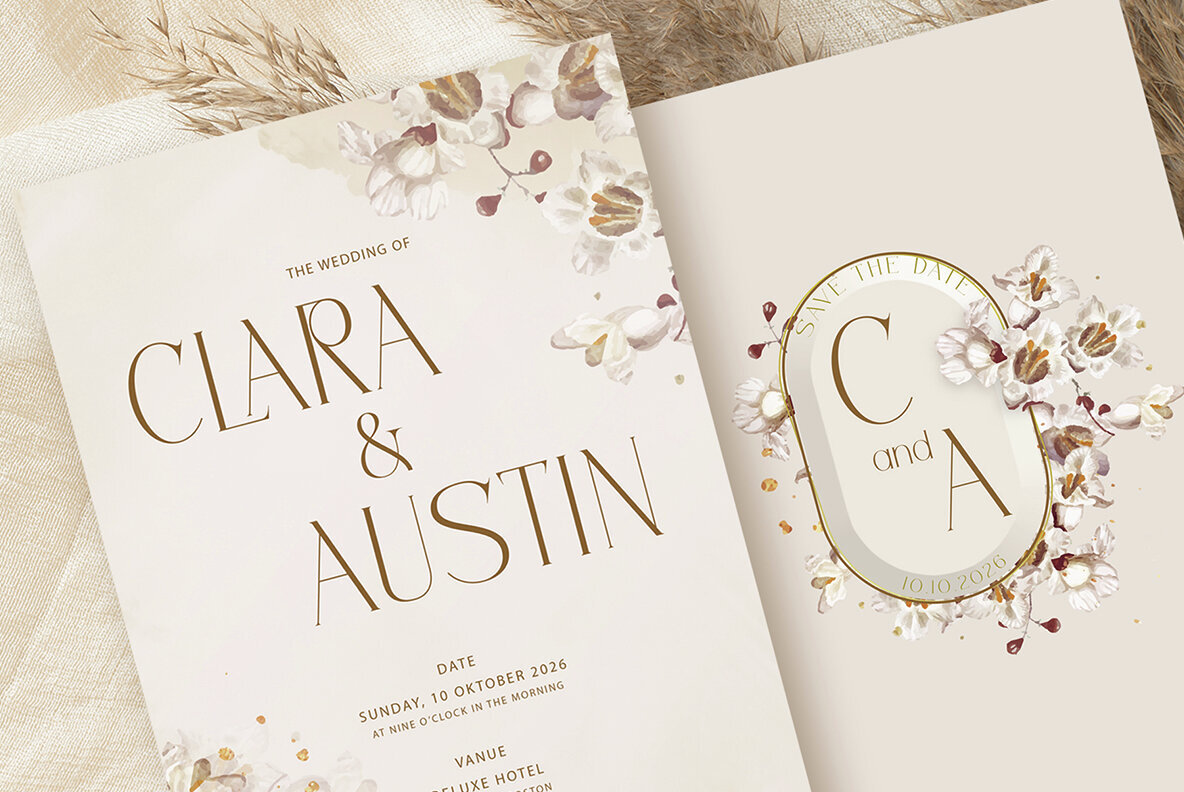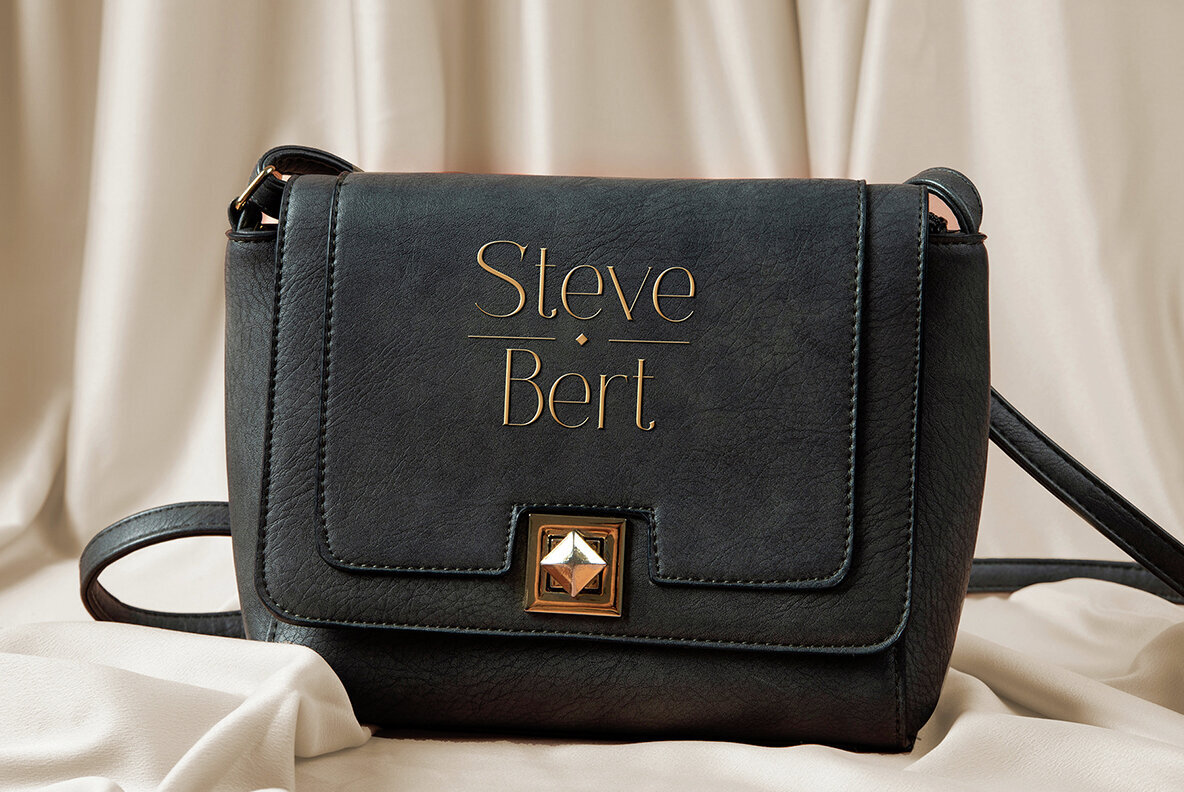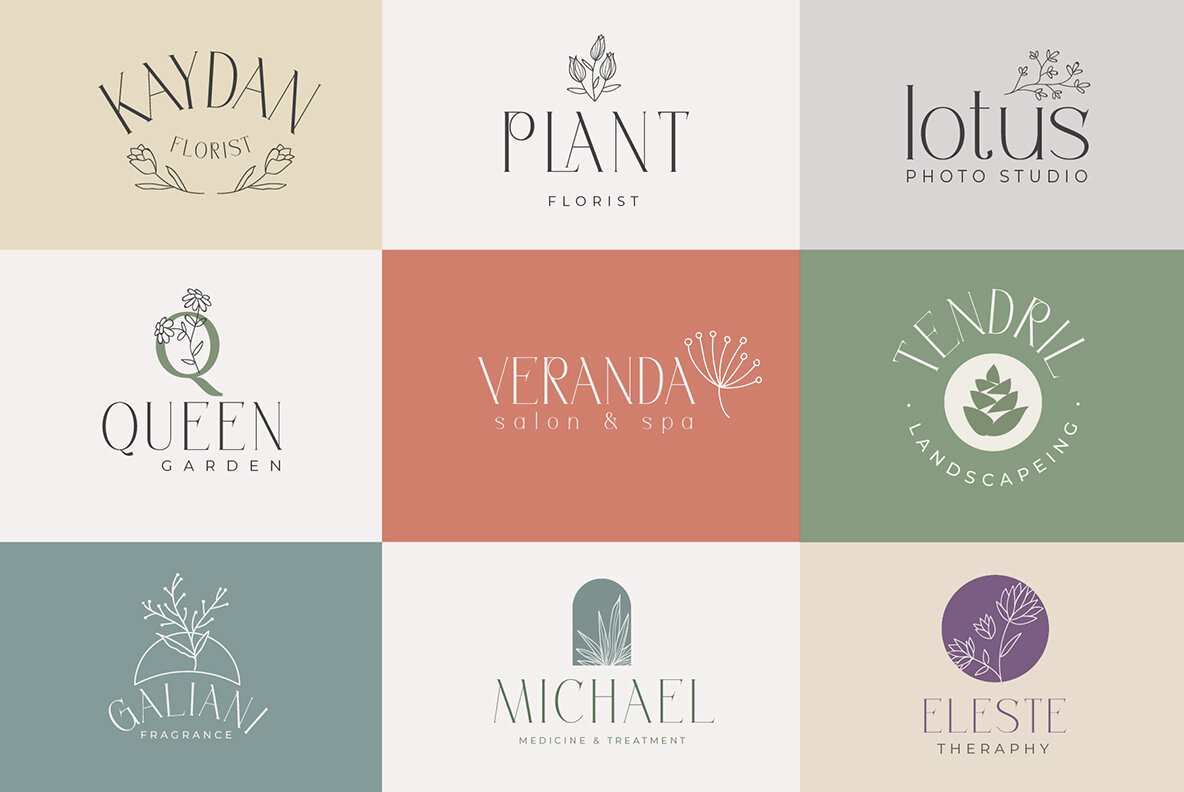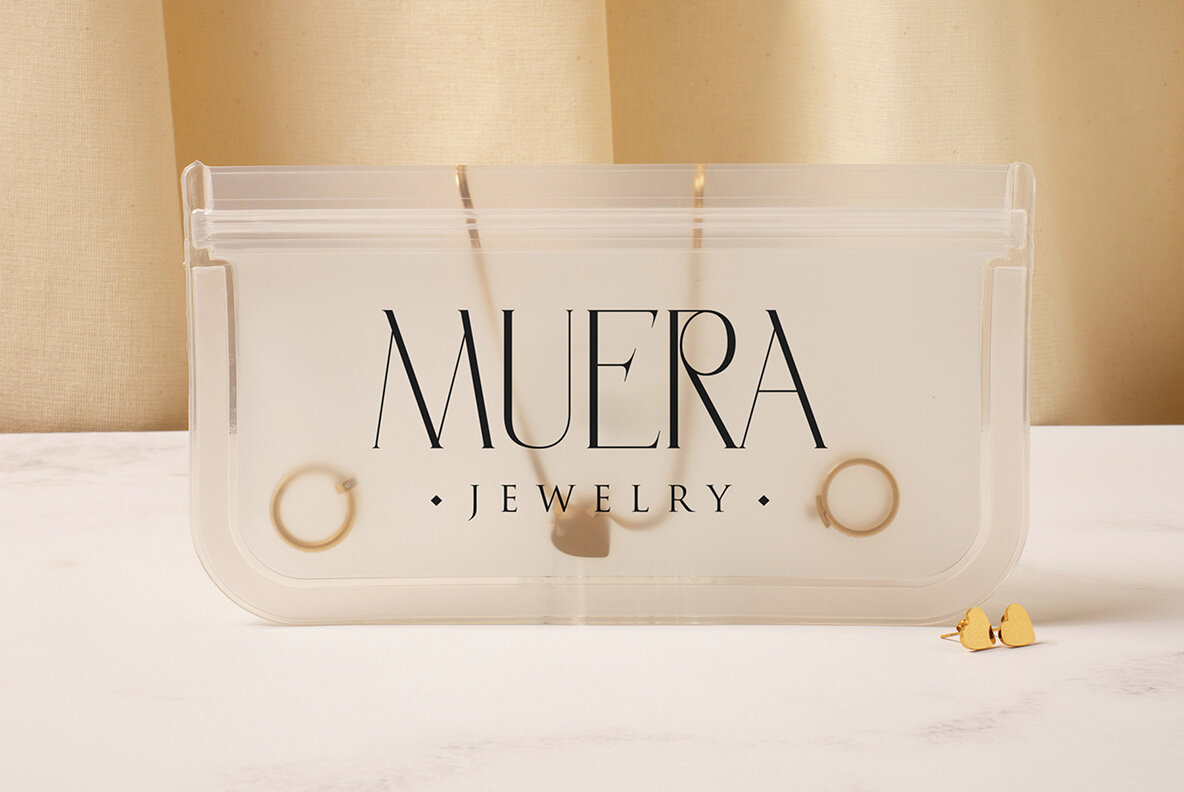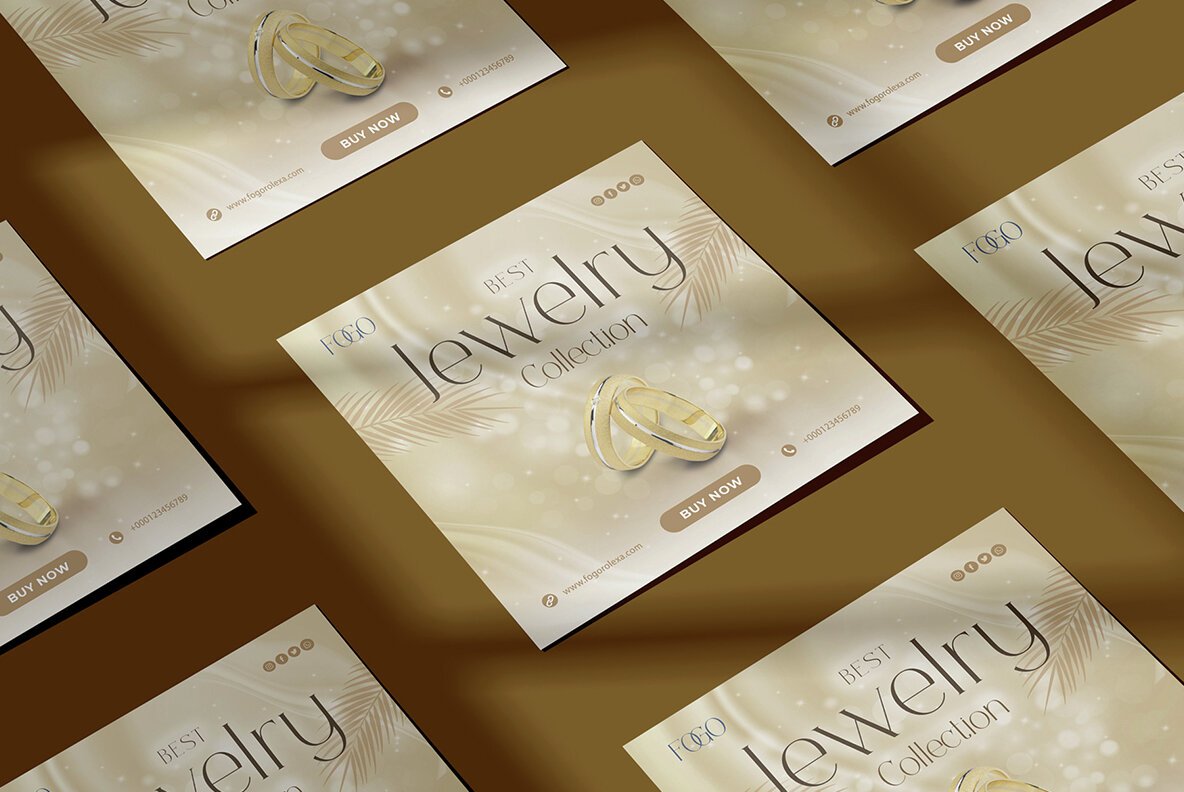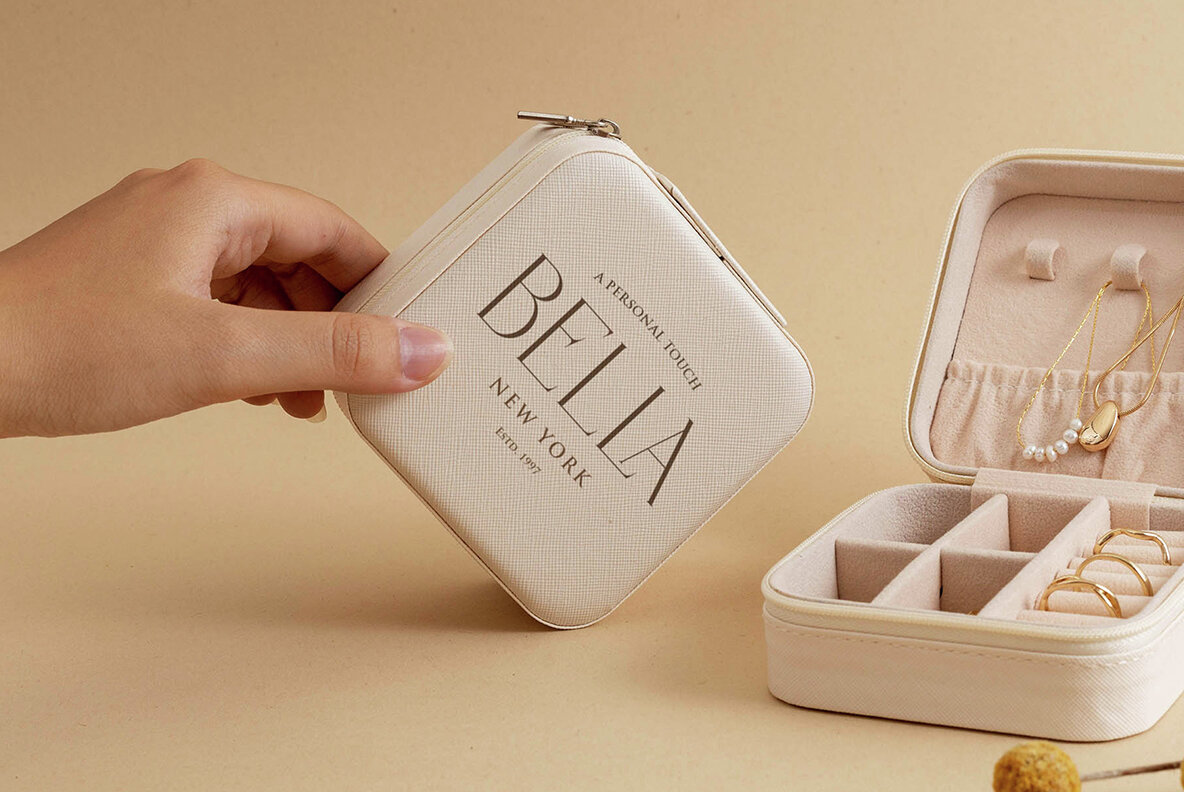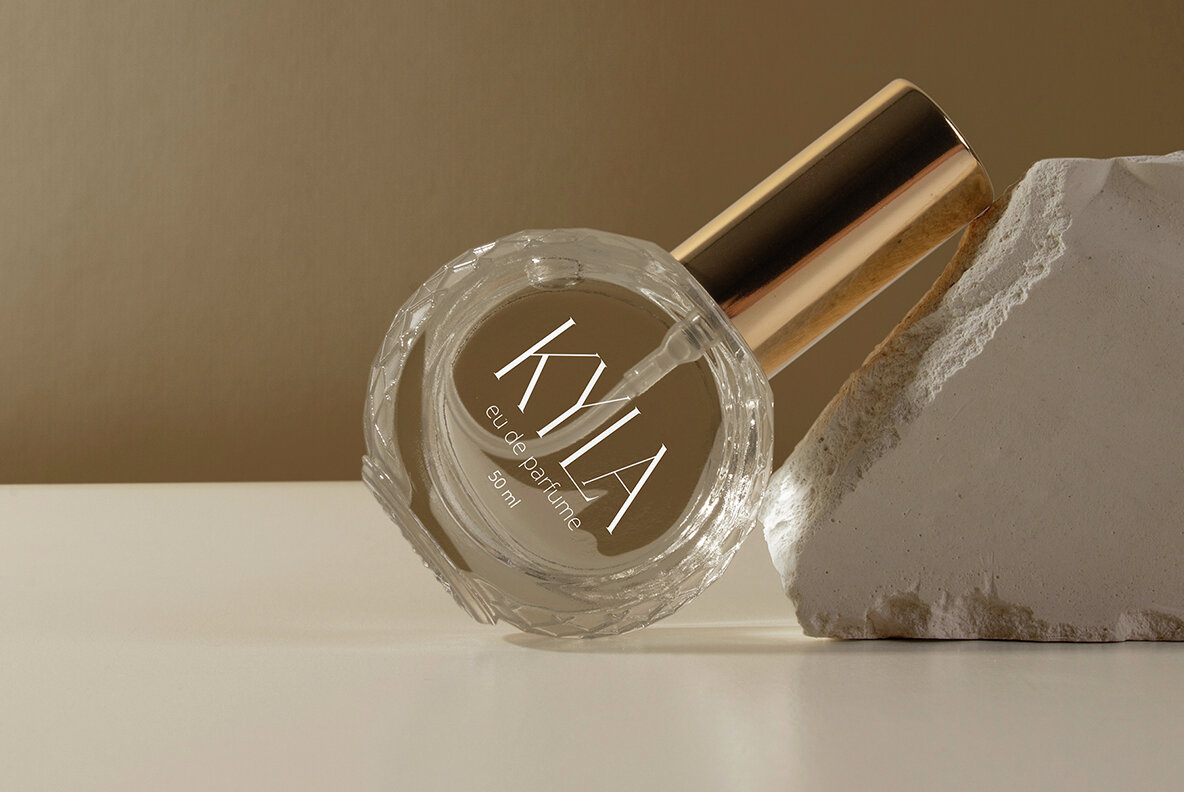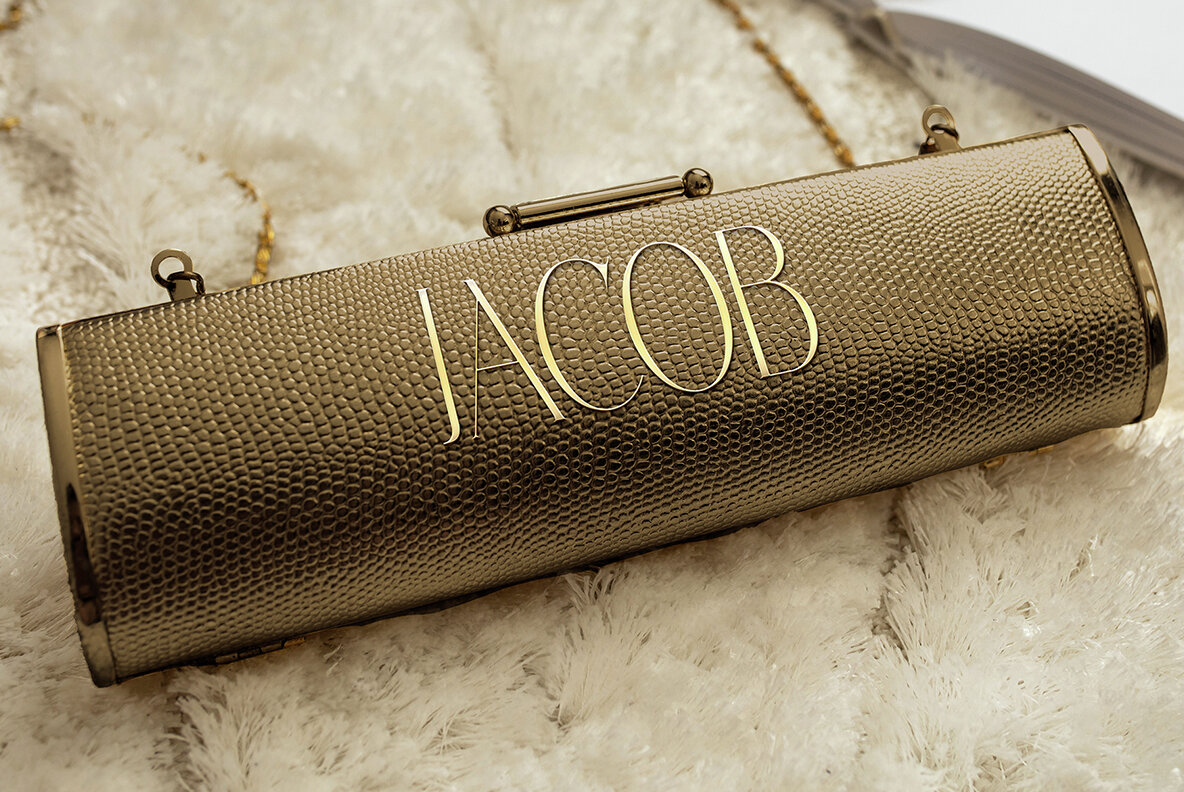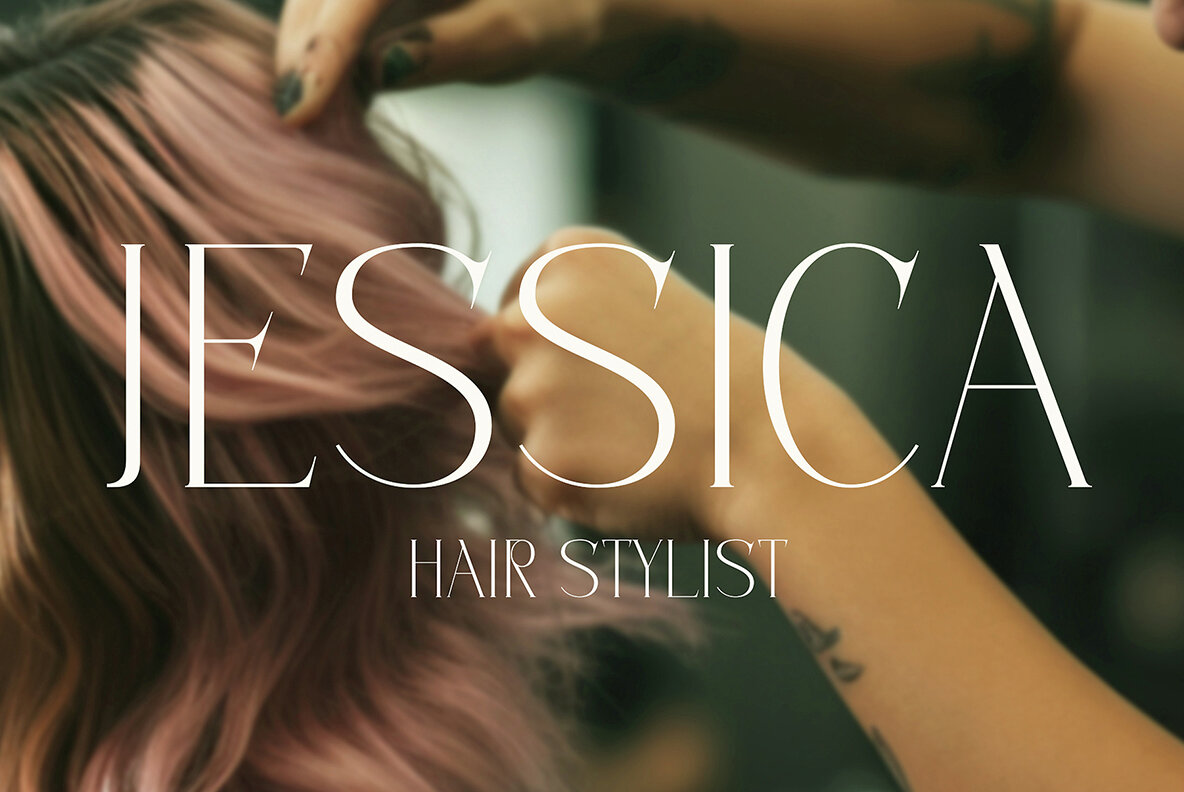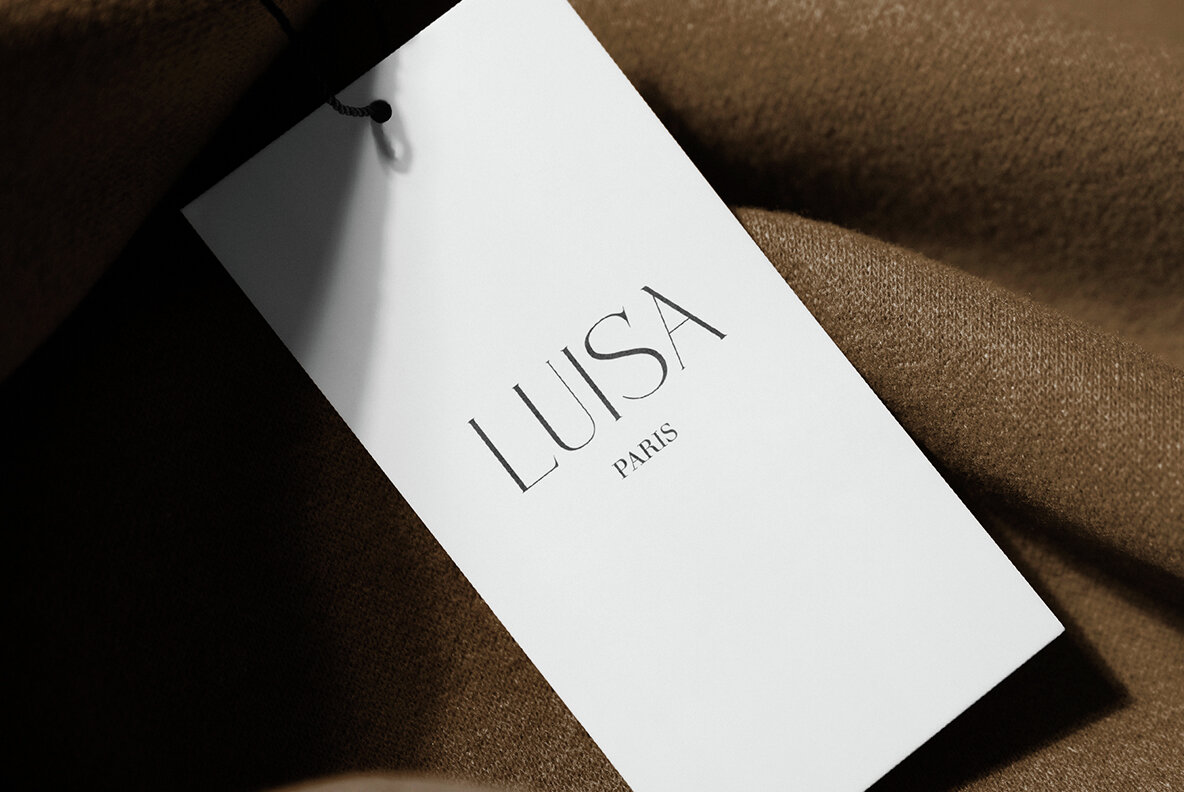
Rolexa Font
Rolexa Regular
Rolexa is a meticulously crafted serif typeface, blending influences from both classic and modern eras. Designed to deliver elegance and refinement, this font embodies a luxurious feel, making it ideal for elevating high-end designs. Bring grandeur to your creative projects with Rolexa's timeless beauty and sophisticated styling. Rolexa's versatile nature allows it to enhance an array of design styles. Whether used for branding, headers, logotypes, posters, magazines, packaging, or art-deco wedding invitations, this typeface adapts seamlessly to various creative needs.Rolexa: A Versatile Serif Typeface with Luxury Appeal
Versatile Design Applications